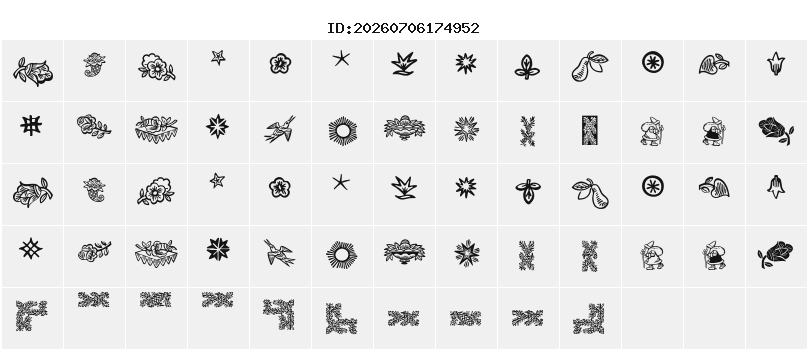
• Font Name: DeutscherSchmuck
• Copyright: Eduard Ege for Genzsch & Heyse, Muenchen 1922. Digitized by Manfred Klein and Petra Heidorn.
• Description: Nach Zeichnungen des Grafikers Eduard Ege in Muenchen als Zusatz zur Deutschen Druckschrift von Heinz Koenig.